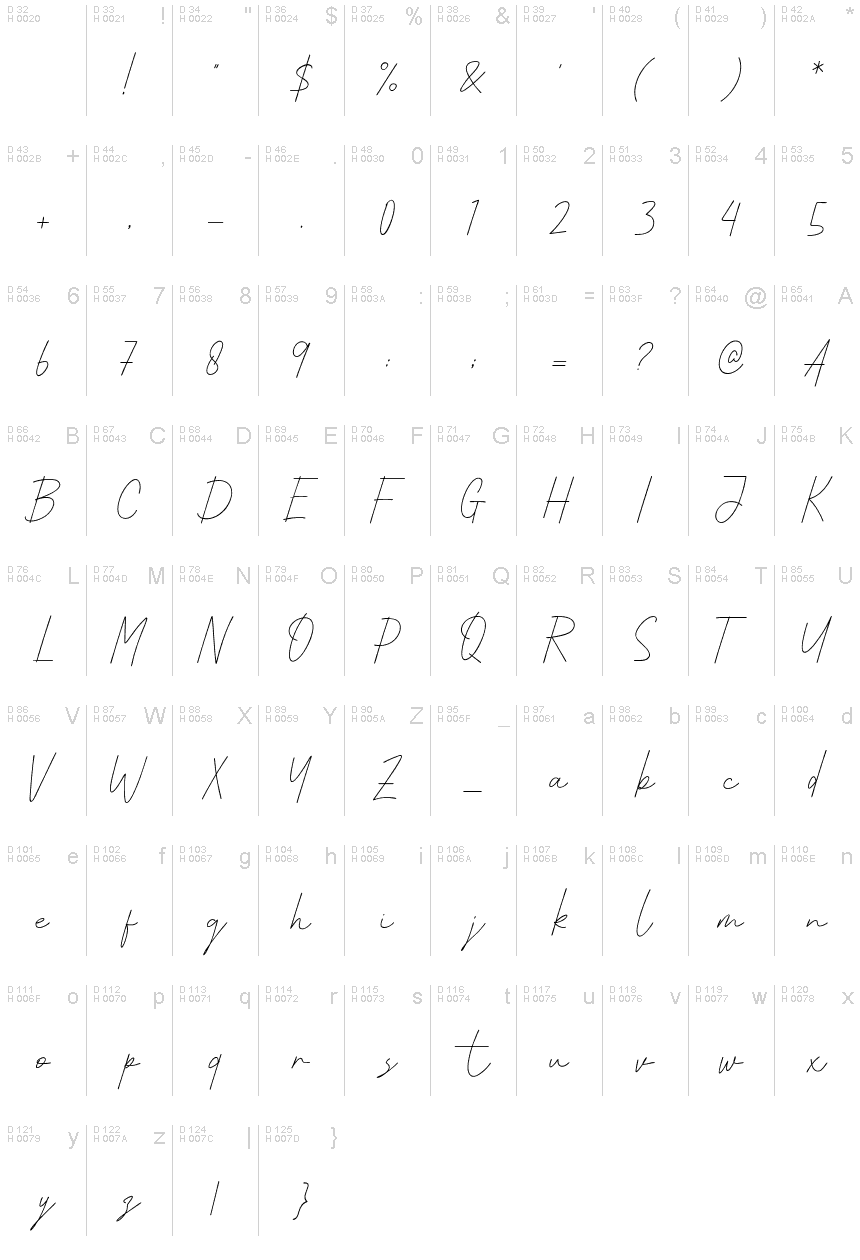
Olatte
Olatte, a charming creation by Khurasan, is an extraordinary handwritten font with an extra-light weight. Its delicate strokes and elegant curves make it perfect for projects that require a touch of sophistication and personalization.
From wedding invitations to branding materials, Olatte adds a graceful and unique element to any design. Whether you're aiming for a romantic feel or simply want to stand out from the crowd, this font will effortlessly elevate your creative endeavors.